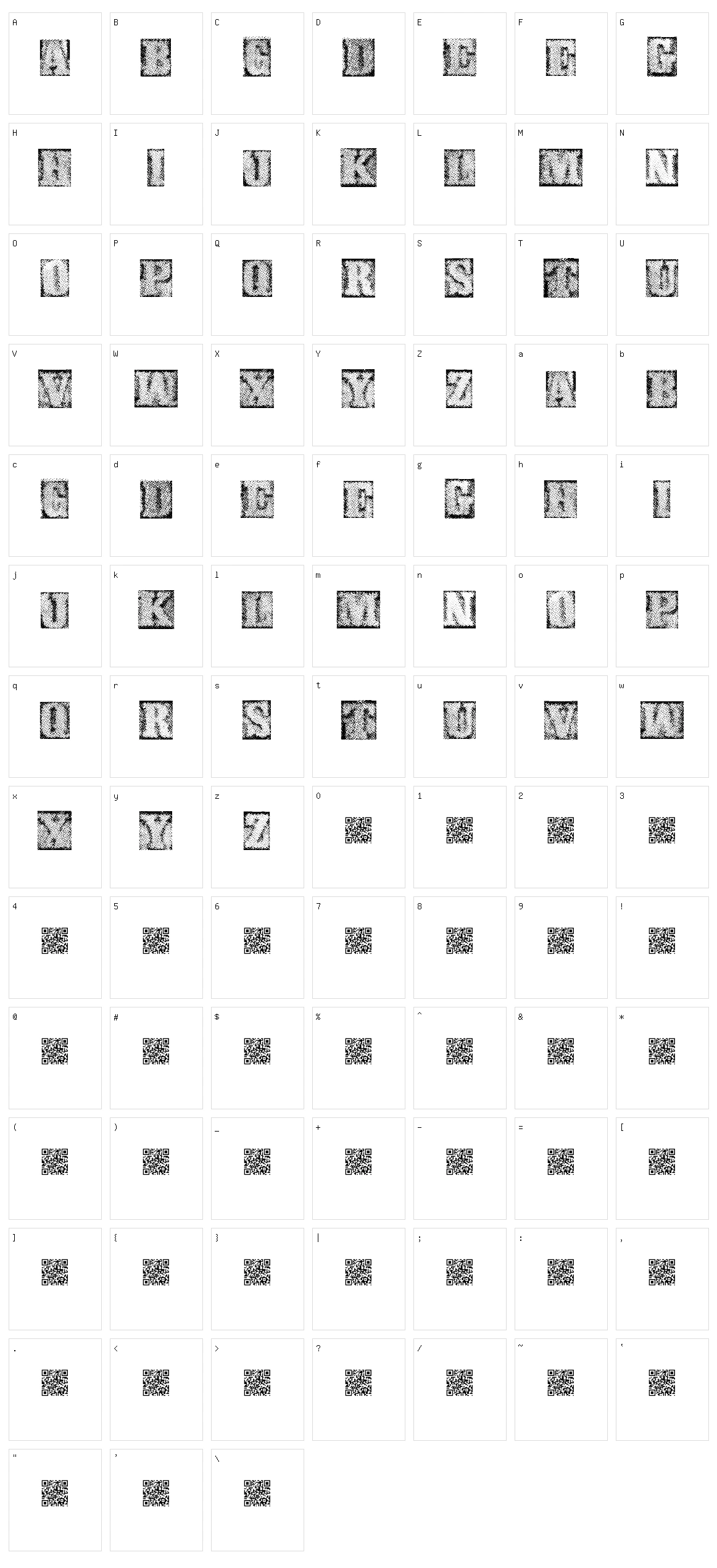
The free font Metalblock Delta is carefully designed by Xerographer Fonts, showcasing a thoughtful balance of creativity and usability and falls under the Eroded font style. When you download the ZIP file, it contains only 405.07 KB of font files, making it lightweight and quick to download. Please review the license details below to understand permitted usage and distribution rights. If license information is not available, we recommend using this font for personal projects only or contacting the author directly for commercial usage permissions.